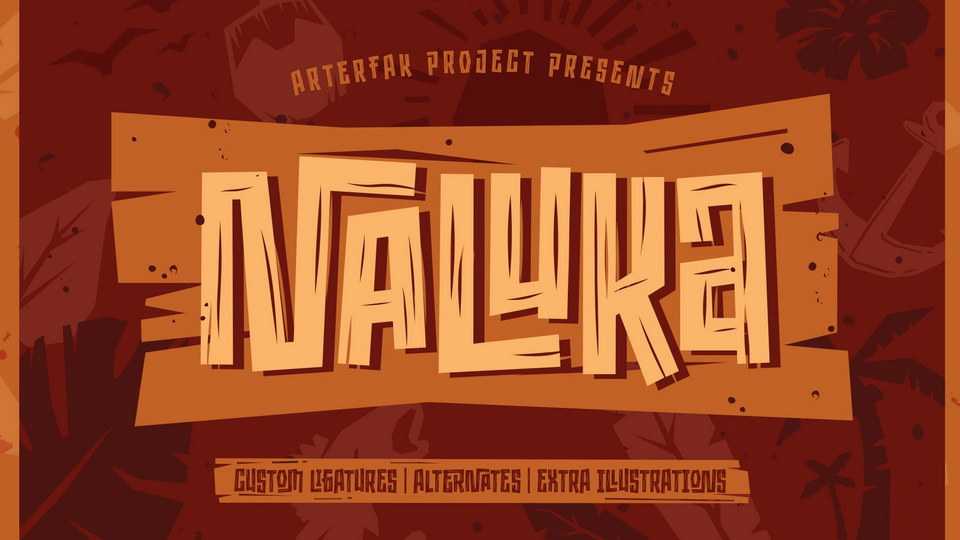
Download Naluka font, a brand new ethnic typeface. Funny, joyful, and unique! Naluka features a new exploration of the ancient-style font, inspired by the geometric tribal ornaments and wood texture.